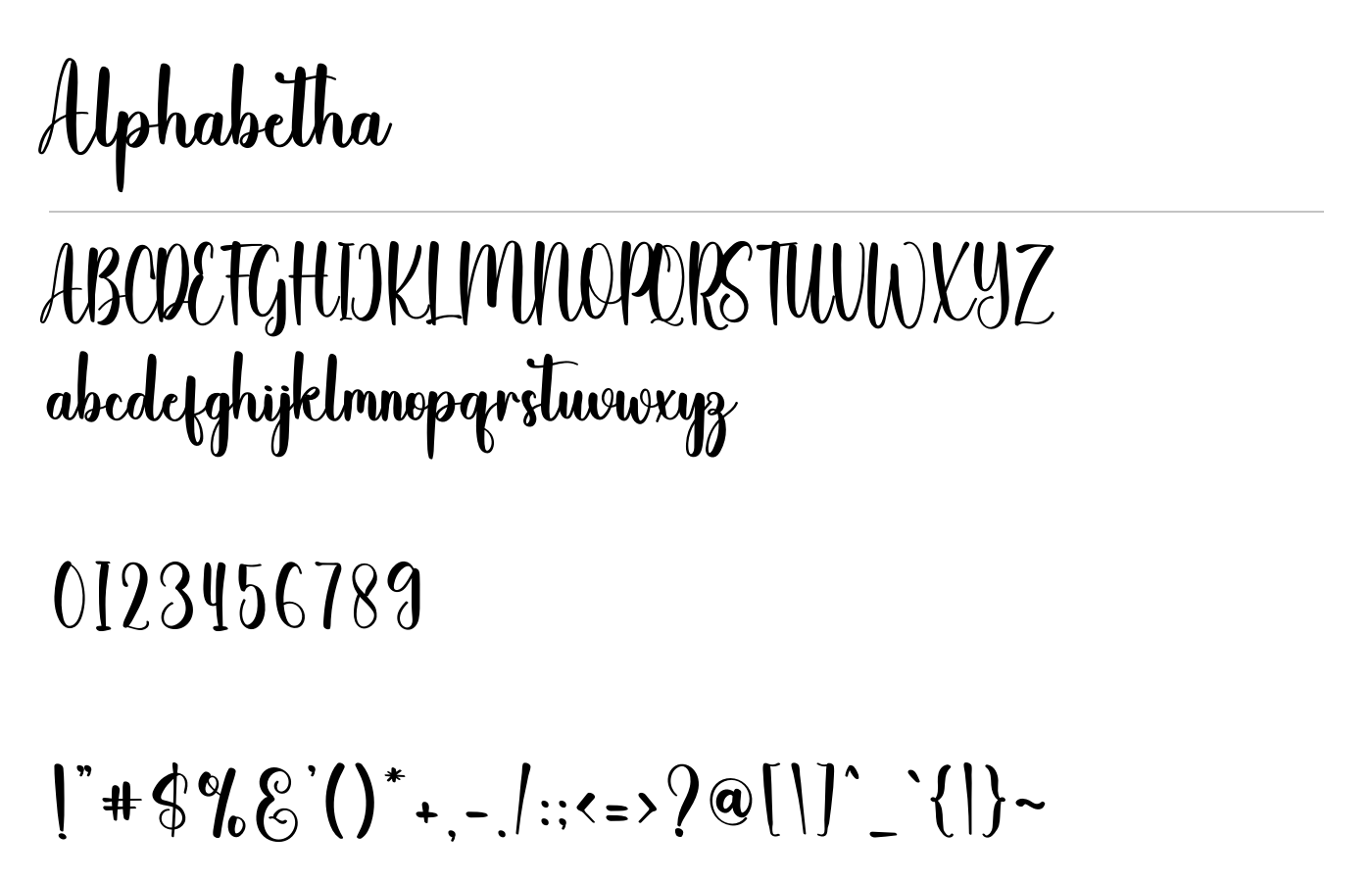
Alphabetha is a lively script font with a playful yet elegant personality, featuring tall, slender letterforms and smooth, flowing strokes that mimic a handwritten style. Its upright, informal design with large x-height and varied stroke widths makes it ideal for creative projects, branding, invitations, and social media where a friendly, artistic touch is desired. This font works well in headlines or decorative text, adding charm and warmth to any visual composition.
Alphabetha Font
About Alphabetha Font